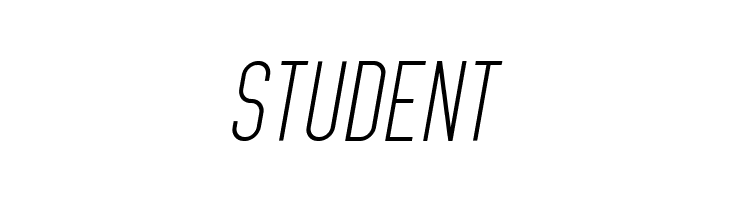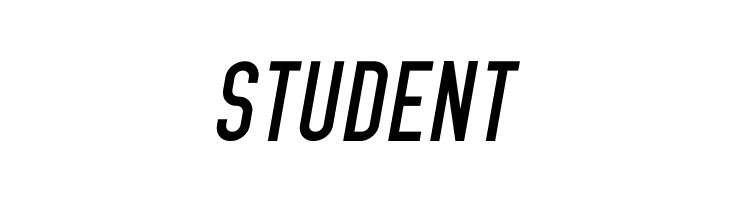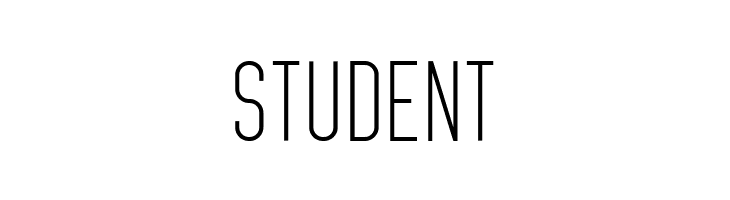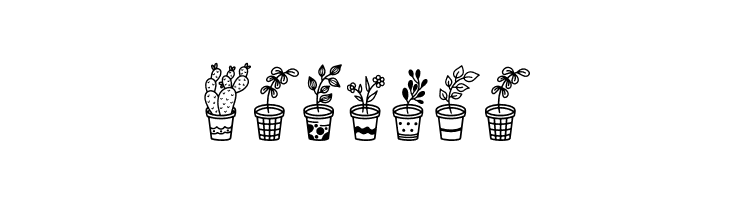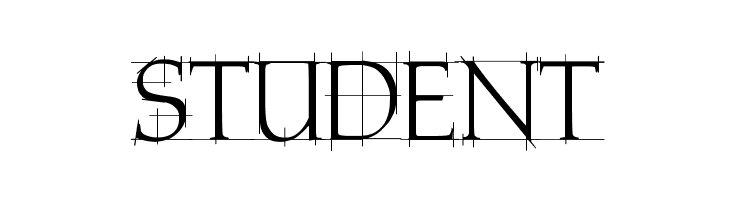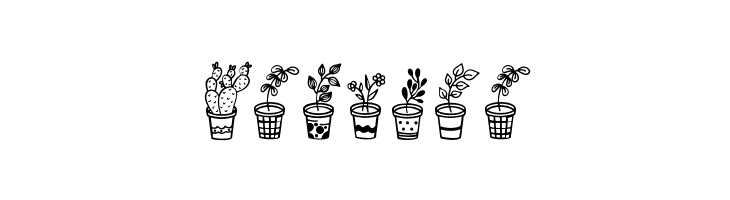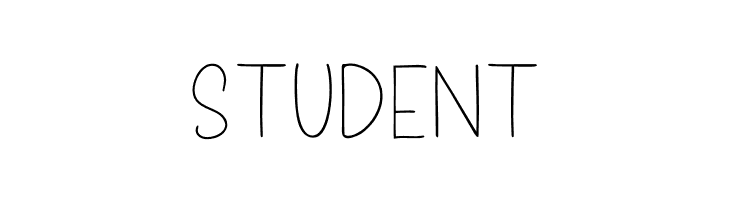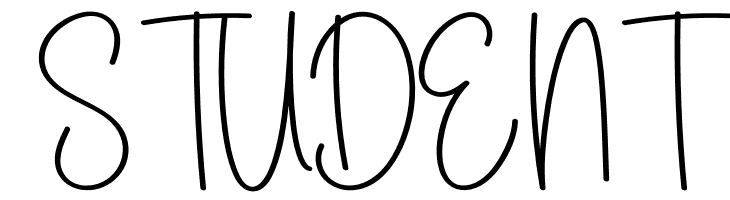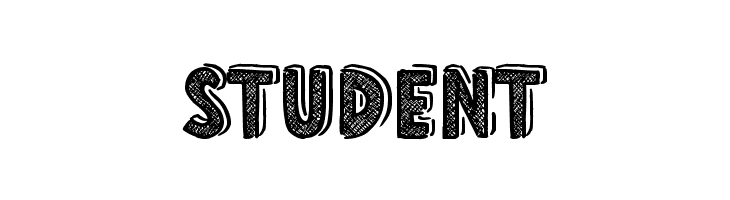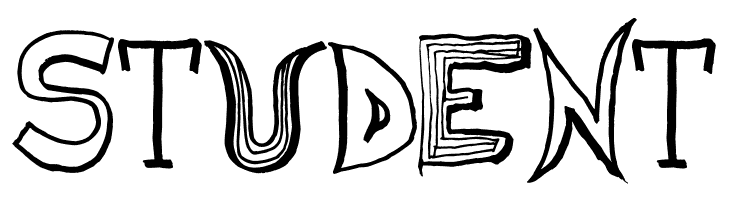
Ornate woodcut-style font with pictorial glyphs.
A bold, modern font with thick strokes and a slightly rounded appearance.
Playful handwritten script font.
A decorative font with characters resembling a mosaic or cobblestone pattern.
A lively, flowing script font with elegant loops and cursive strokes.
A playful, handwritten-style font with bold, rounded strokes.
A lively, cursive font with a handwritten style, perfect for adding a personal touch.
A whimsical and decorative font with playful curls and flourishes.
A bold, brush-style font with an energetic and dynamic appearance.
A playful handwritten font with rounded, casual letterforms.
Icon-based font with bold home appliance silhouettes.
A modern, rounded monospaced font with a clean and uniform appearance.
A modern, rounded monospaced font with consistent spacing and sleek design.
A bold, playful font with quirky, uneven strokes and a whimsical style.
A bold, flowing script font with a hand-drawn, brush-like appearance.
A playful, bold handwritten font with rounded letterforms.
Bold, simplified icons representing home entertainment and tech devices.
Playful handwritten font with rounded edges.
Playful, bold handwritten sans-serif font.
Playful handwritten sans-serif font.
Thin, handwritten sans-serif font with a casual style.
A playful, hand-drawn font with unique patterns and textures.
A bold, modern sans-serif font with clean lines and uniform stroke widths.
A sleek, italicized font with a modern, condensed design.
A modern, narrow sans-serif font with consistent stroke width and high legibility.
Hand-drawn decorative font with plant illustrations.
A detailed, elegant font with a technical and architectural design.
Tall, narrow, handwritten script with playful, casual strokes.
A bold, textured, hand-drawn font with a playful, three-dimensional appearance.